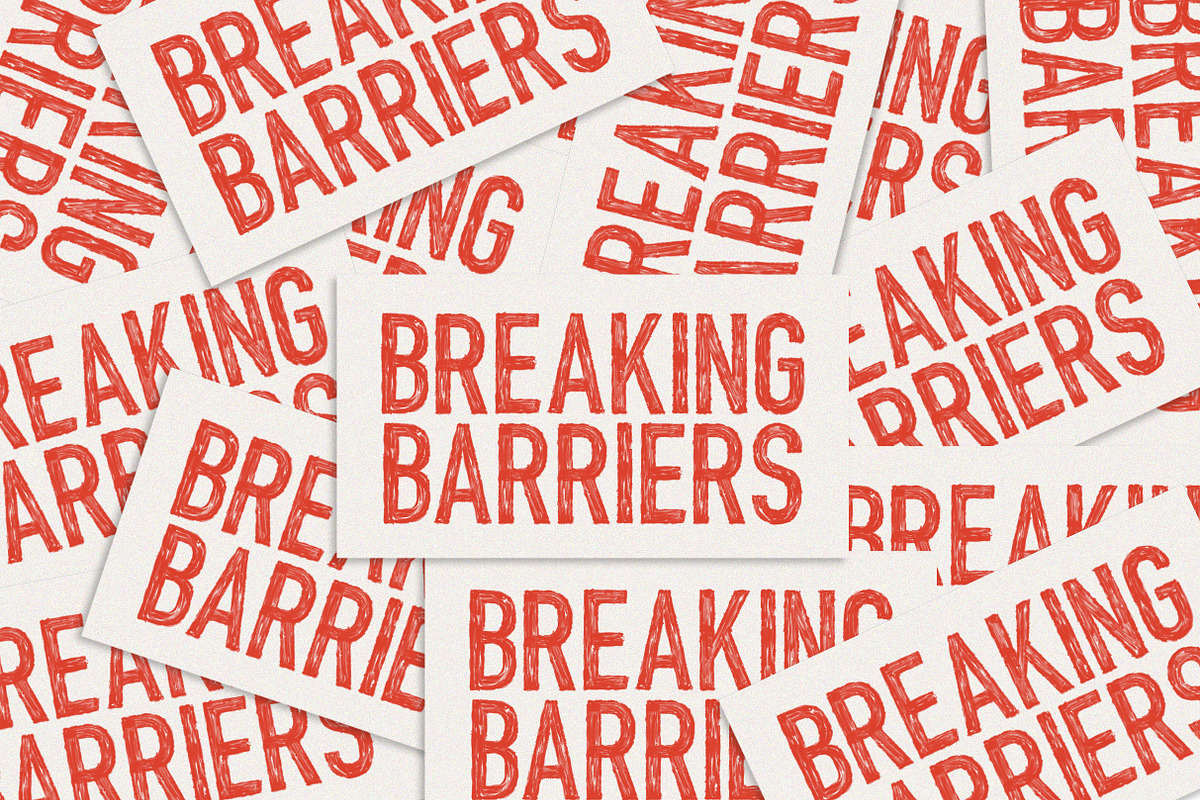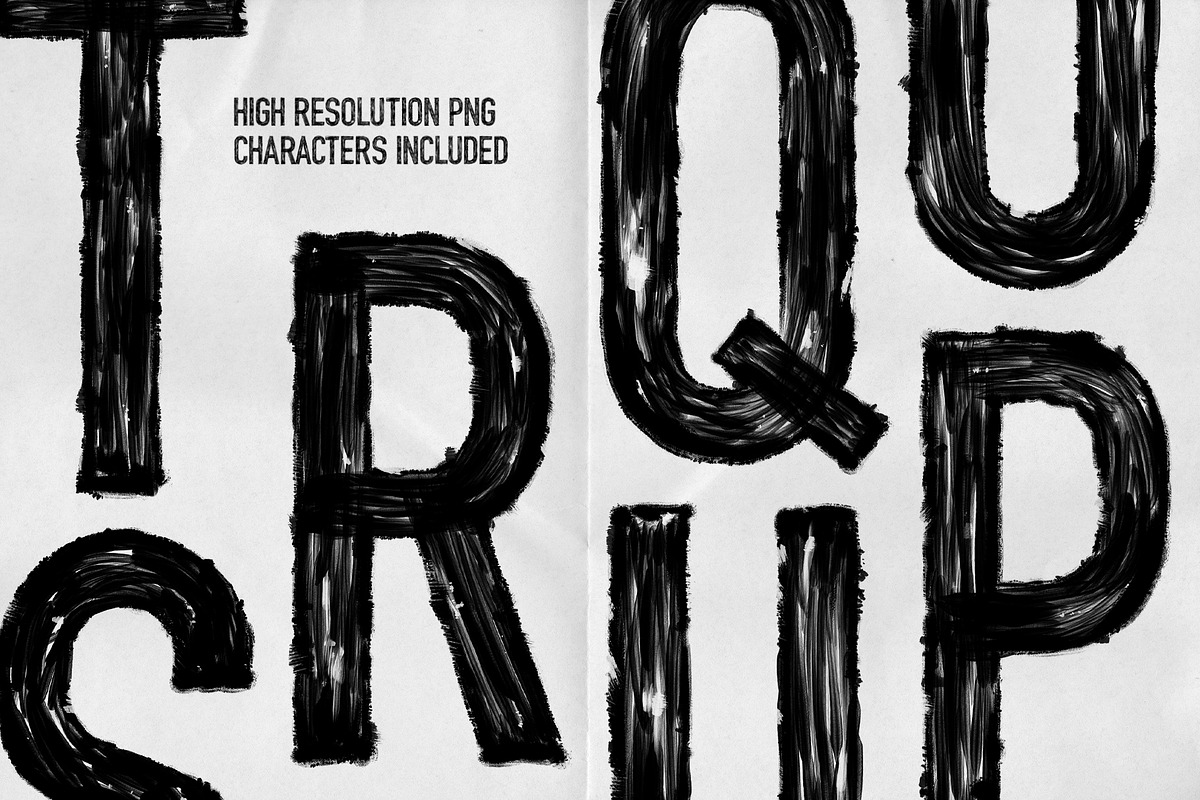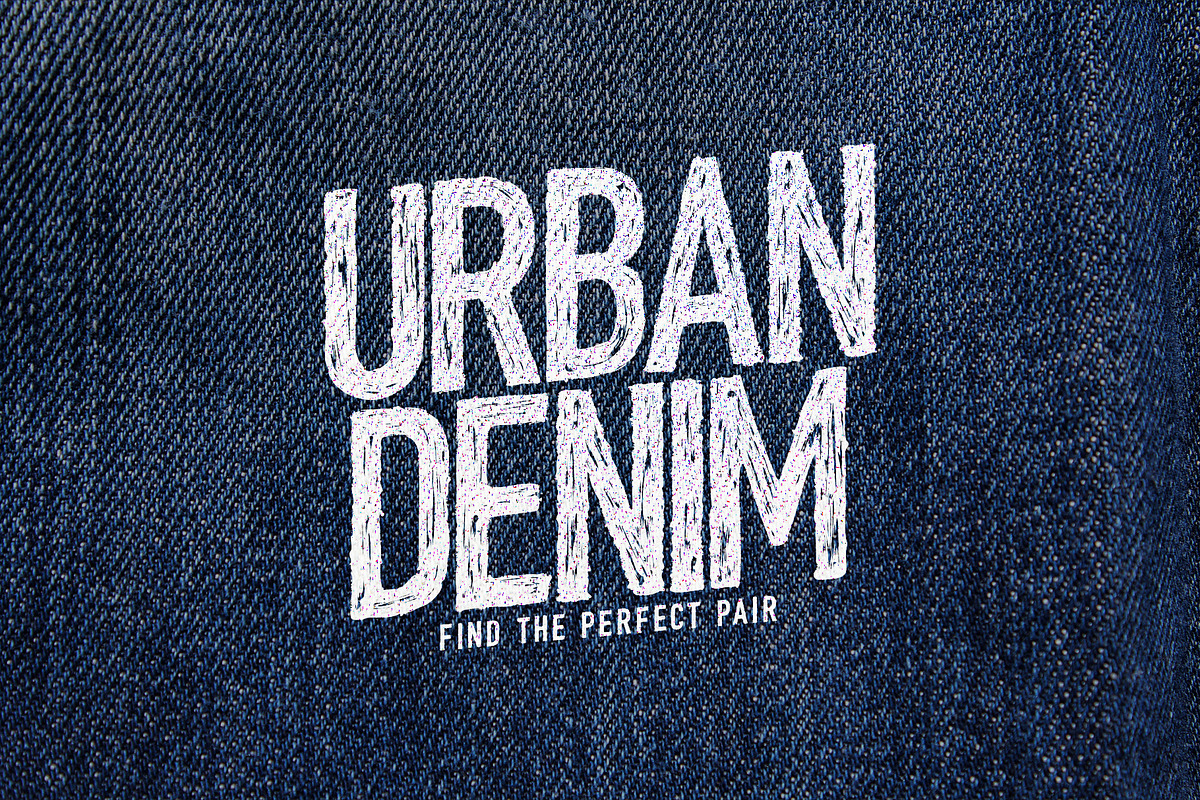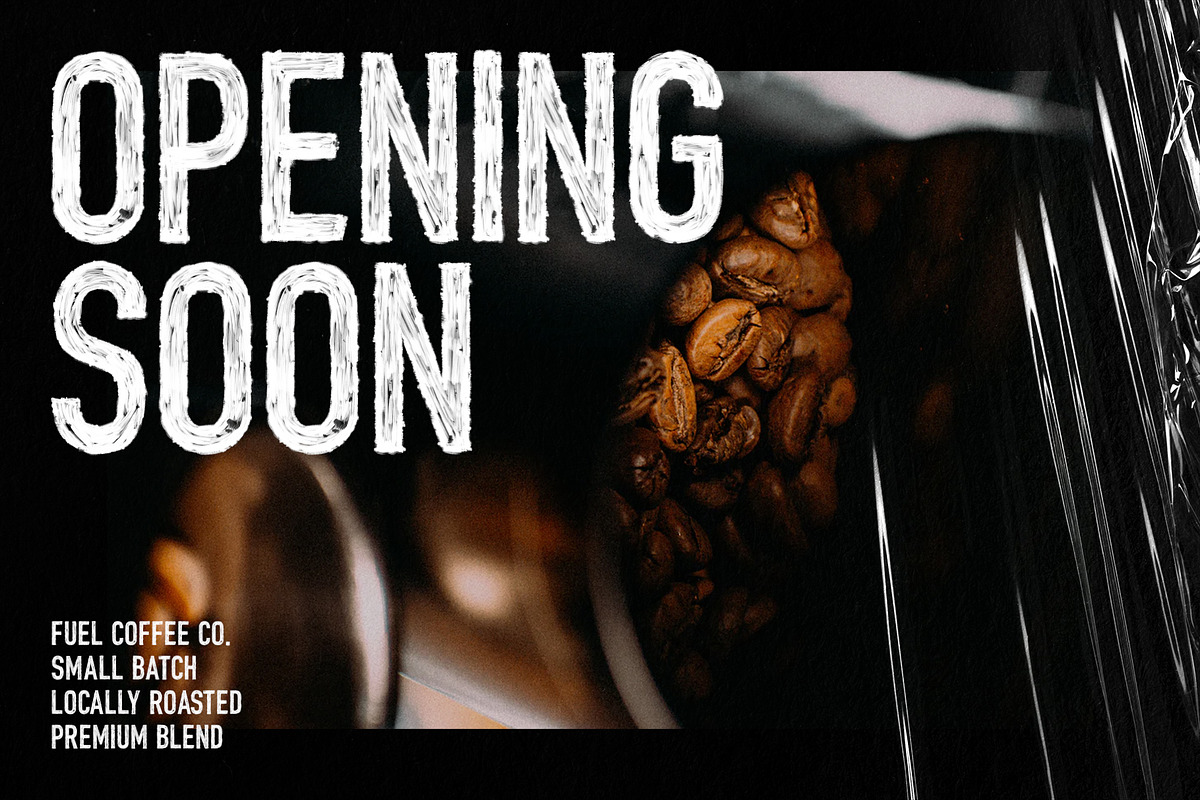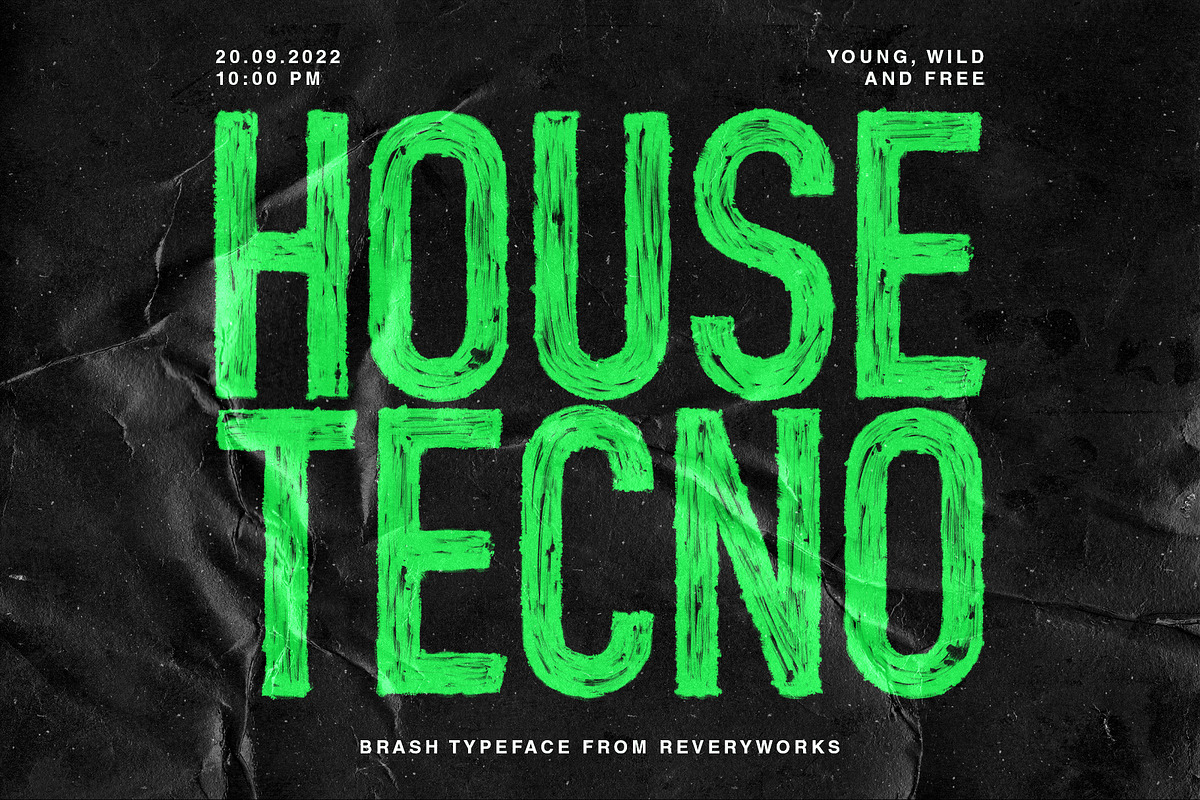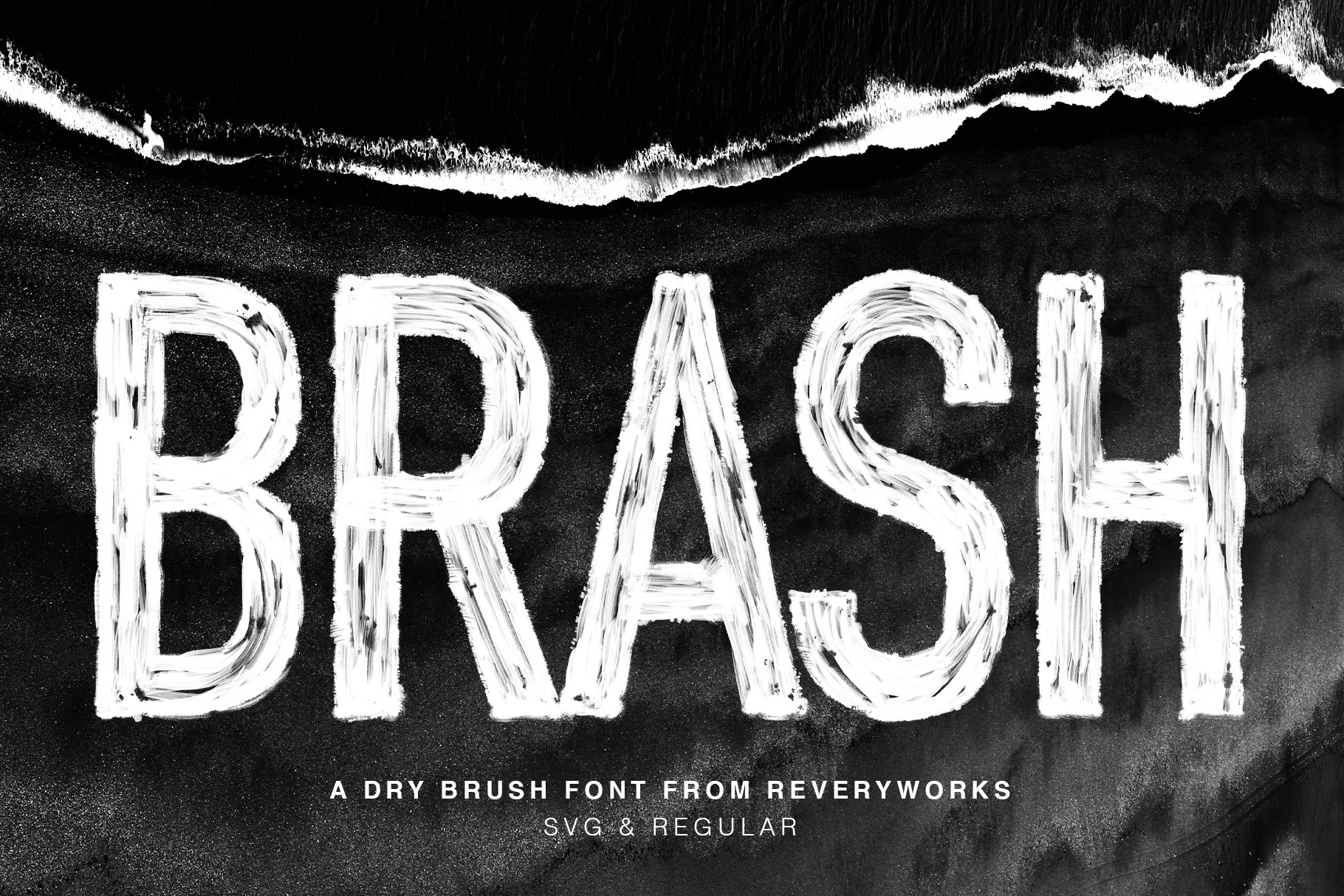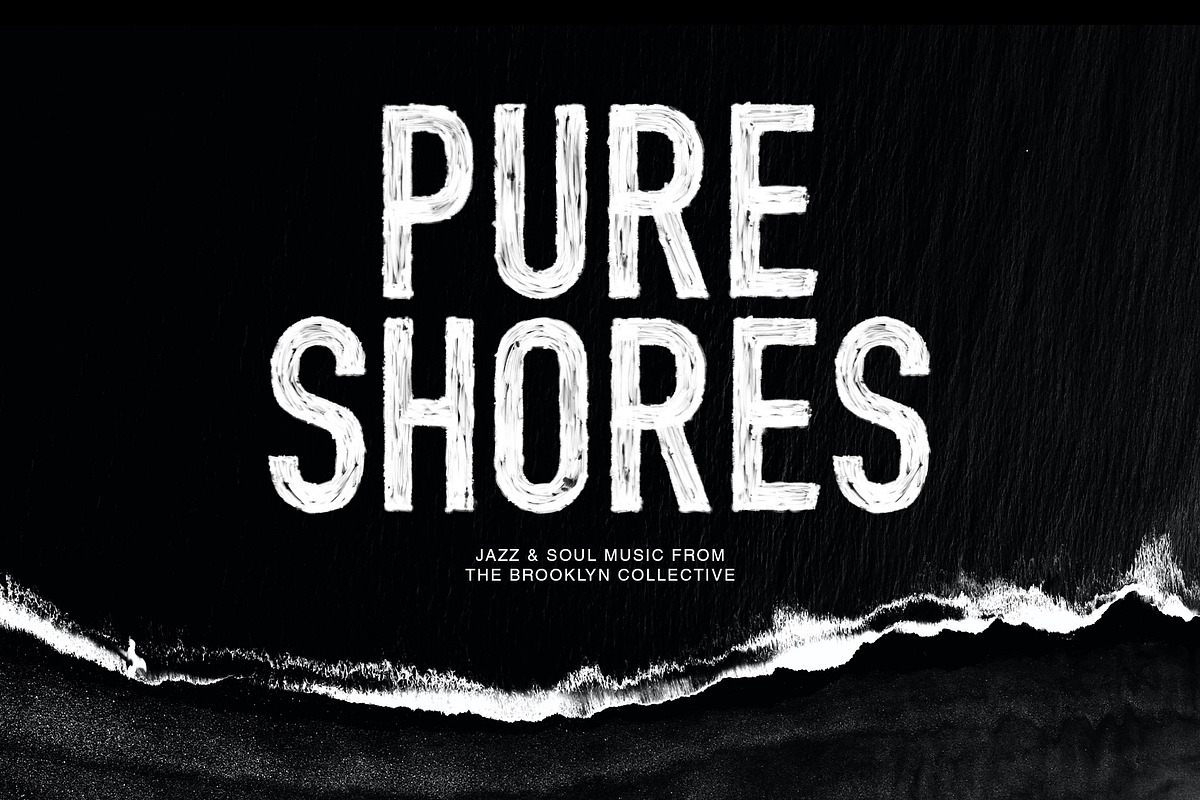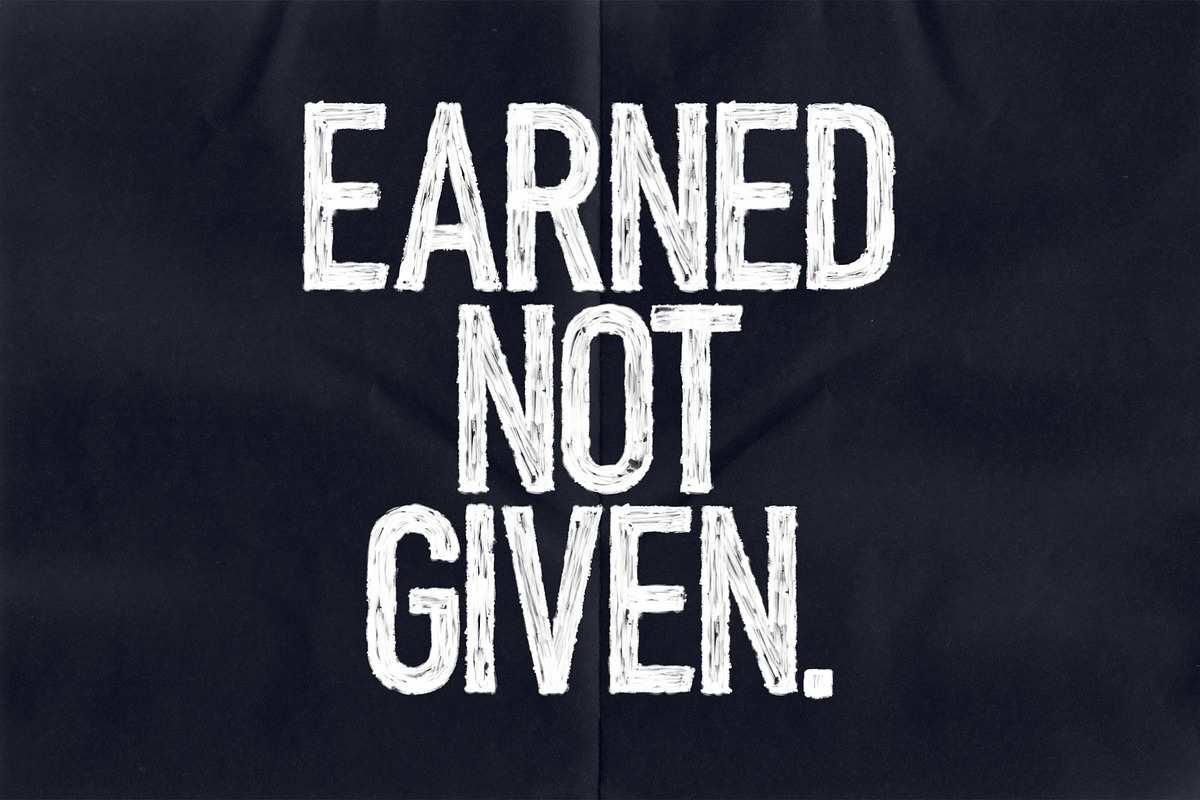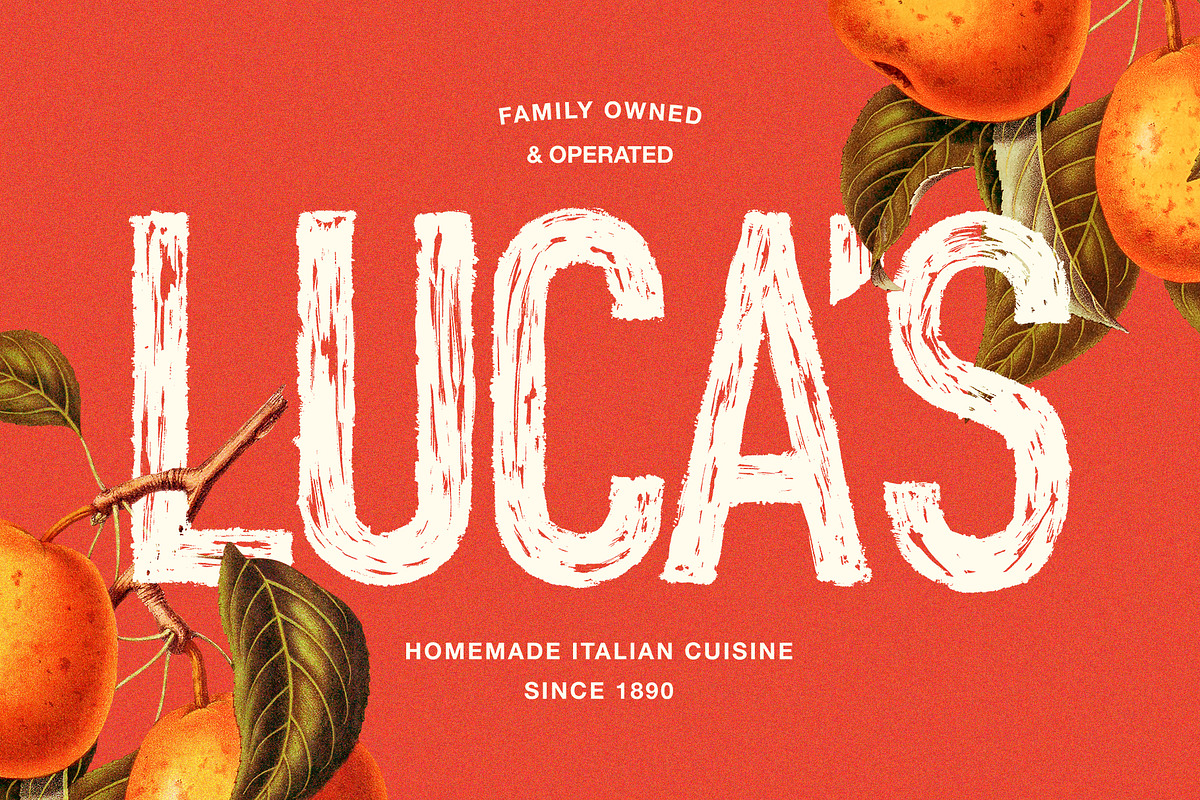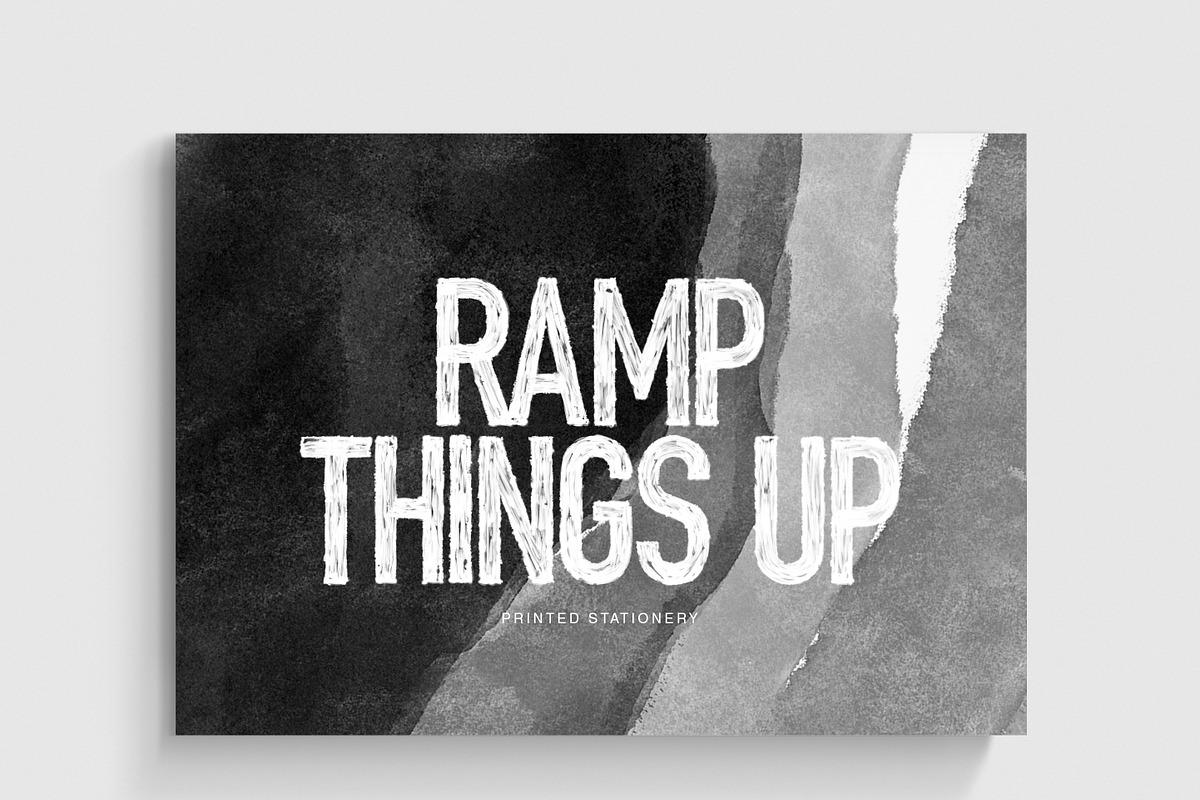
BRASH - A Dry Brush Font
Introducing BRASH - A condensed dry brush font inspired by loose broken rock and ice.
Each character was individually hand-drawn to give it unique texture and stokes. It's rustic, rugged and here to make a strong statement in your designs! Play around with the letter spacing to achieve different effects.
This font includes Multi-lingual support. The following characters are included: À Ä Å Ã Æ Ç É Ê È Ë Í Î Ì Ï Ñ Ó Ô Ò Ö Õ Ø Œ Š Û Ù Ü Ý Ÿ